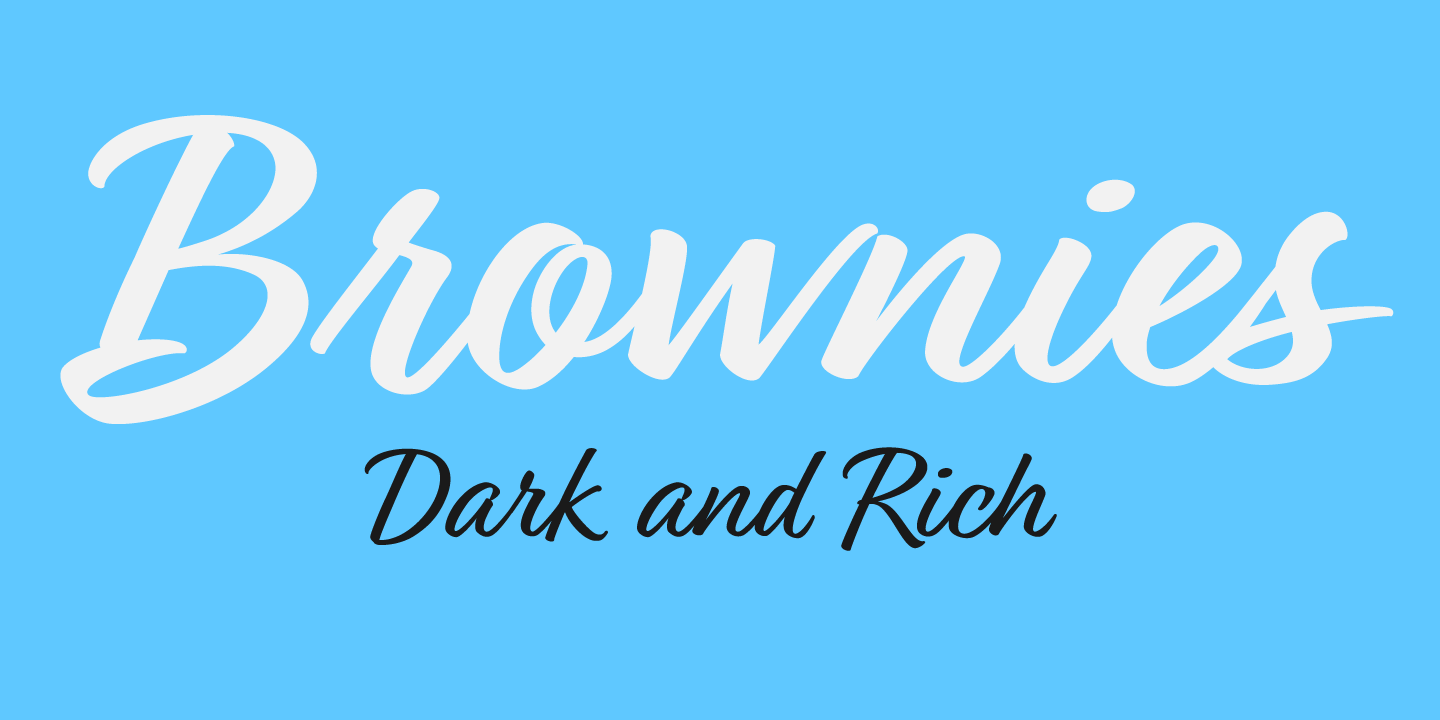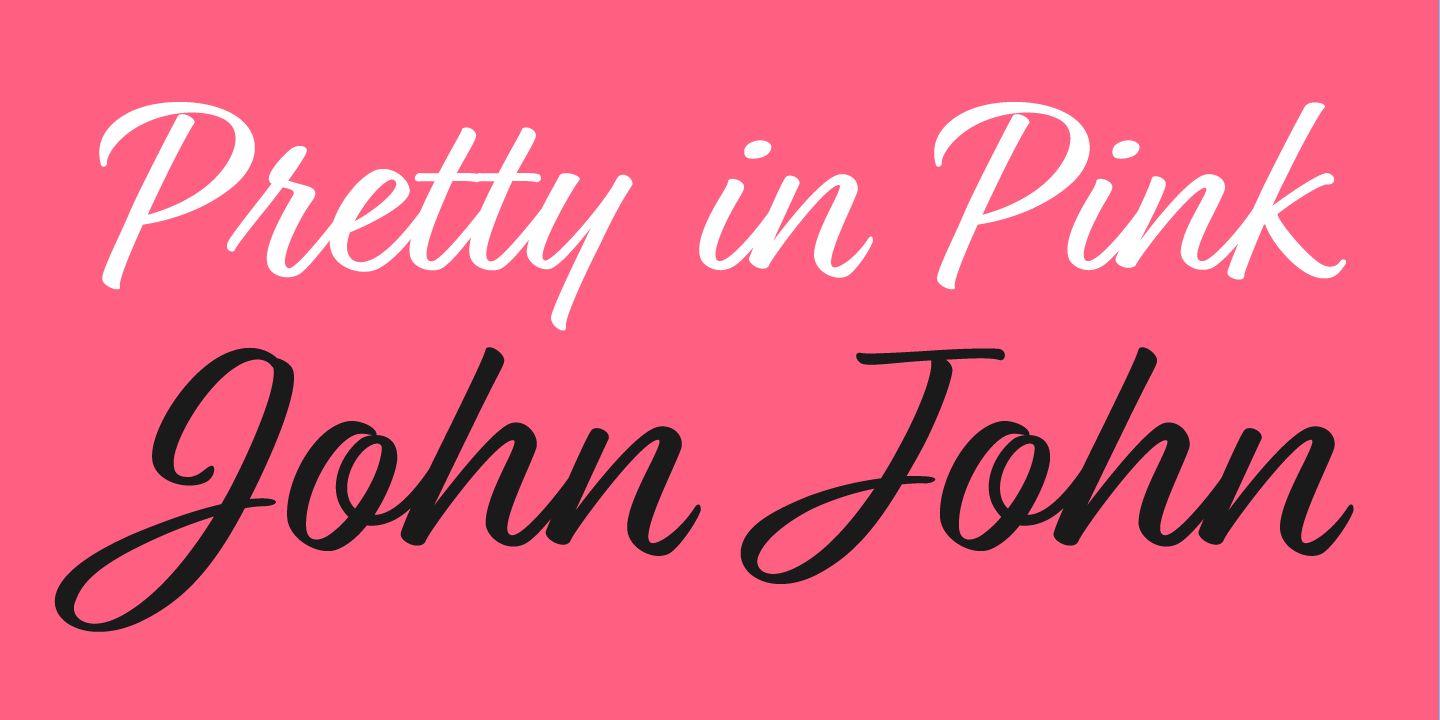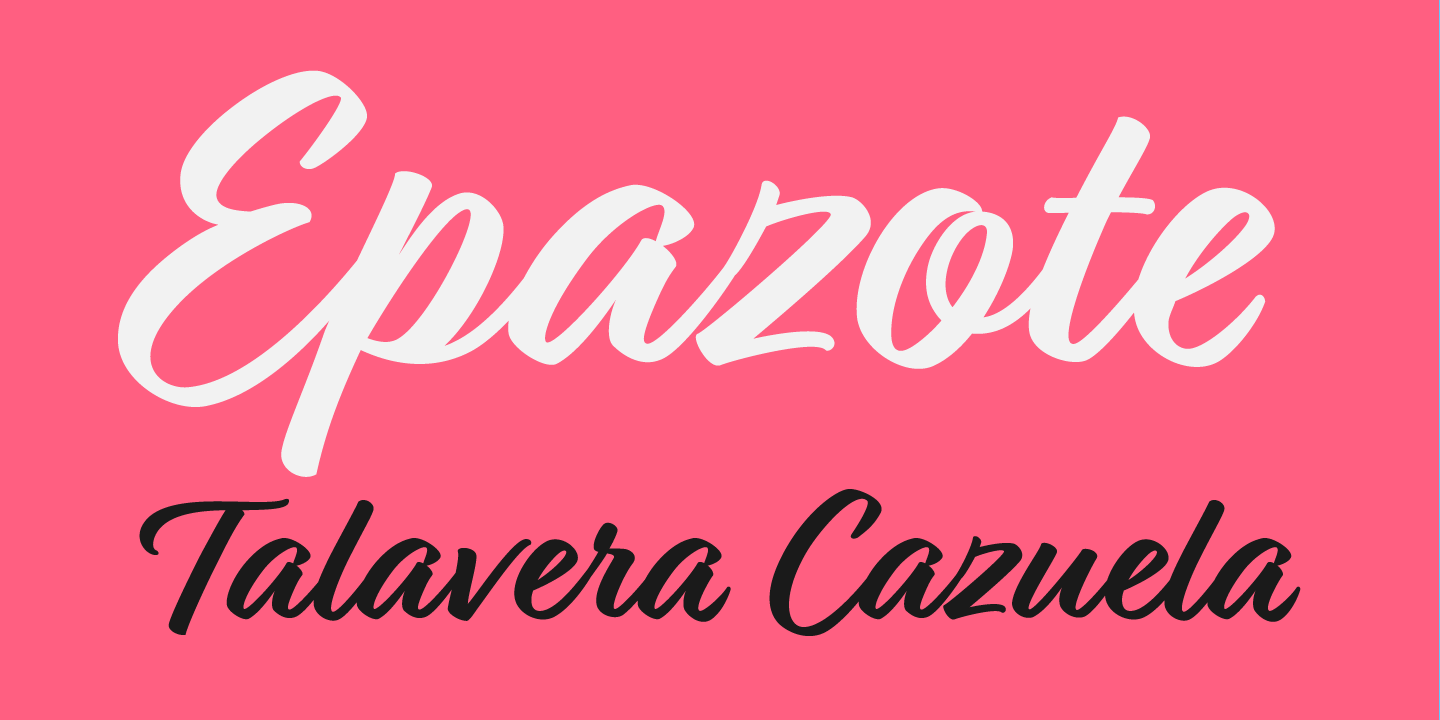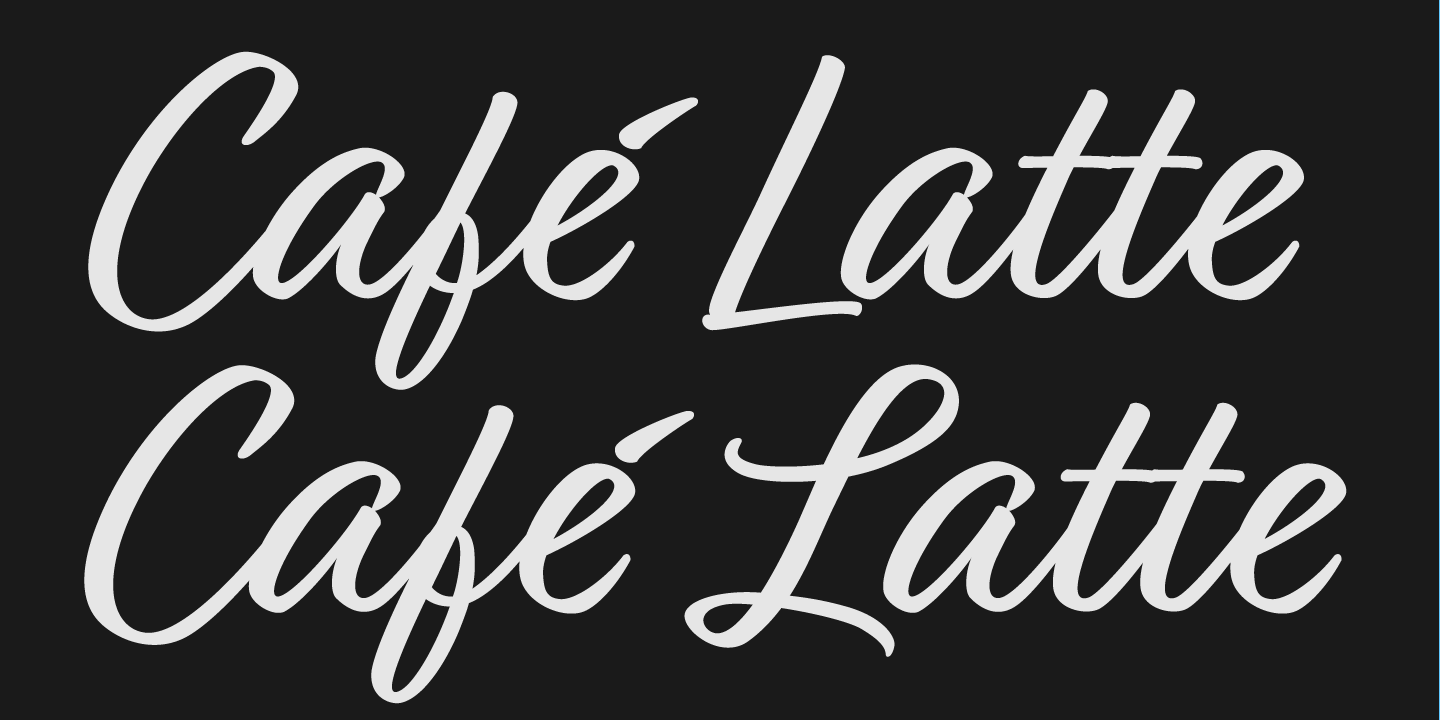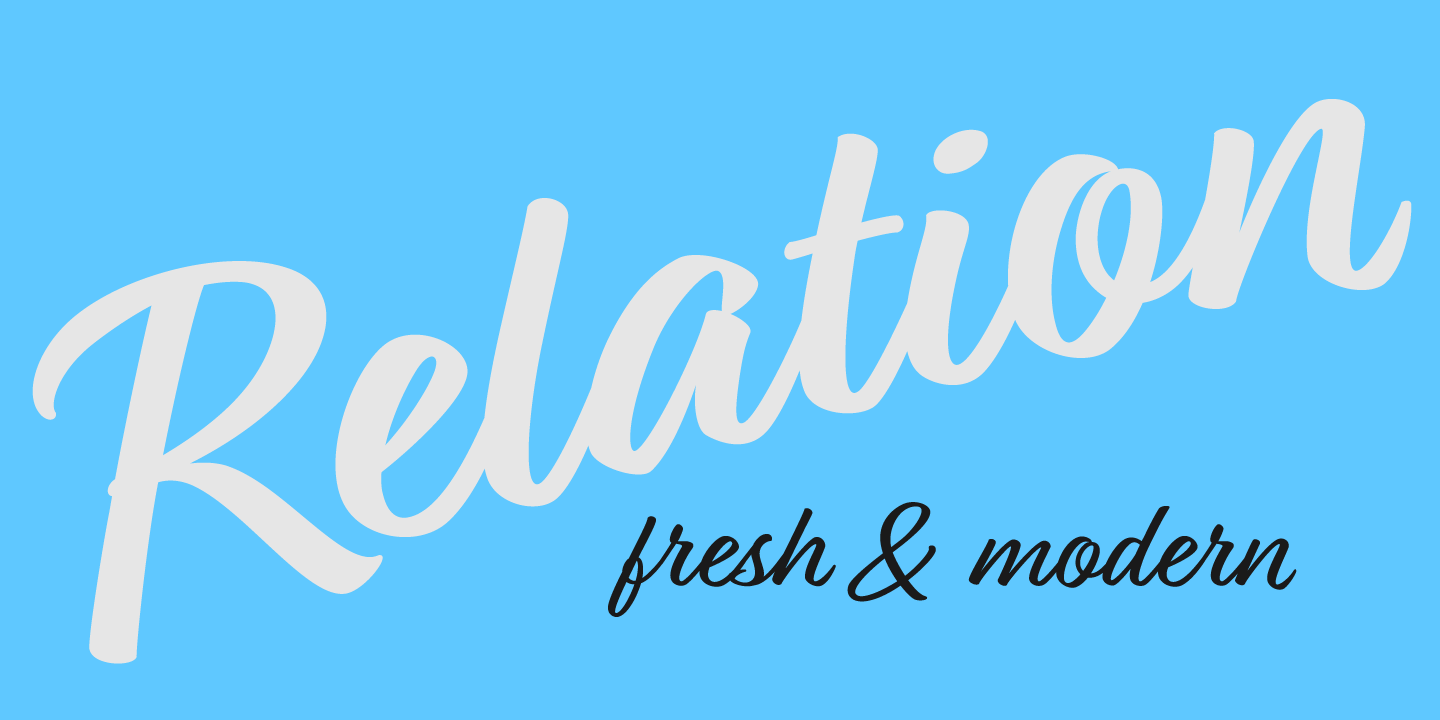
Relation
About Relation
Relation is a beautiful family of brushed script fonts with a fresh and modern look. The alternate version (Relation Two) has a different style of caps. Each version is available in two weights: regular and bold. To get the most out of this typeface be…